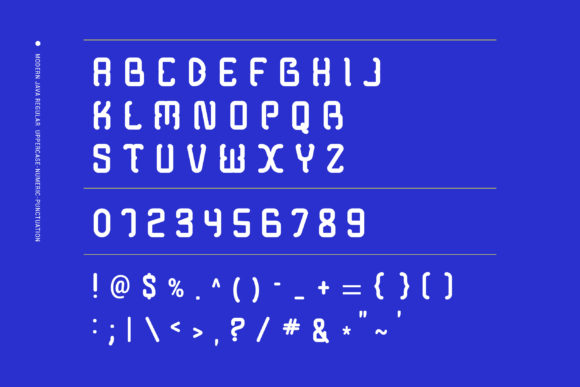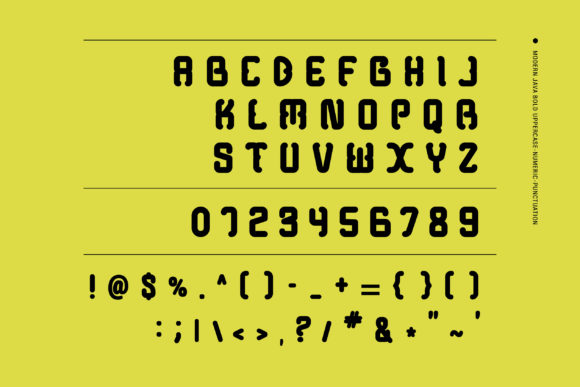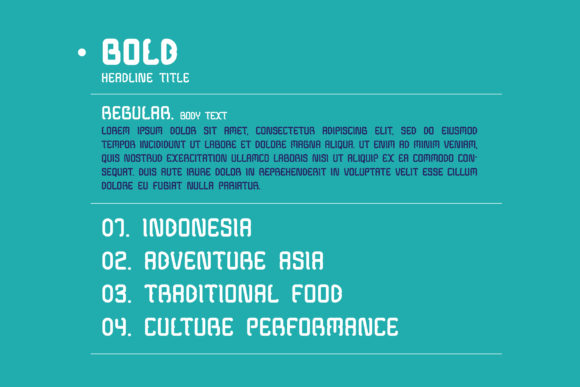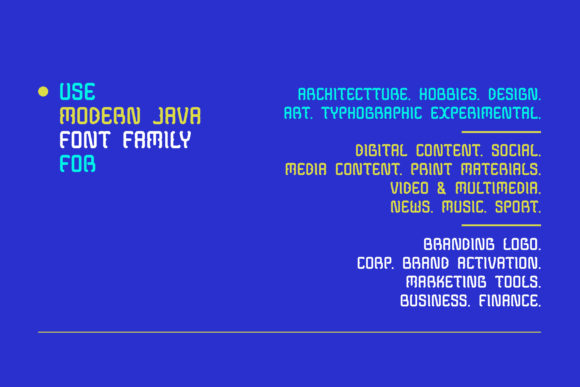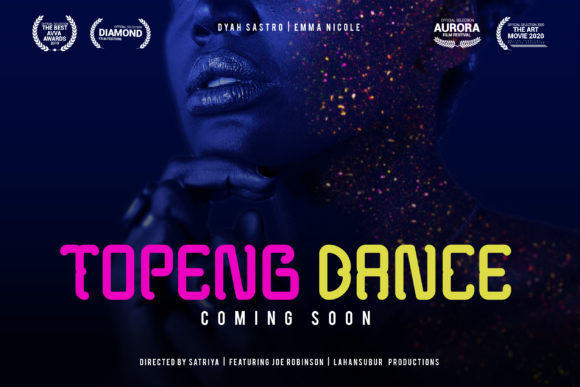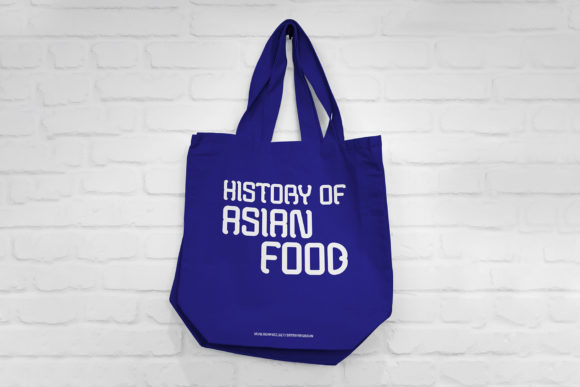
Introduction to Modern Java Font
Modern Java is a great sans serif font.
It features a unique look that will elevate your designs to the highest level It will complement any design need perfectly with its perfectly balanced mix of the smooth and sharp.